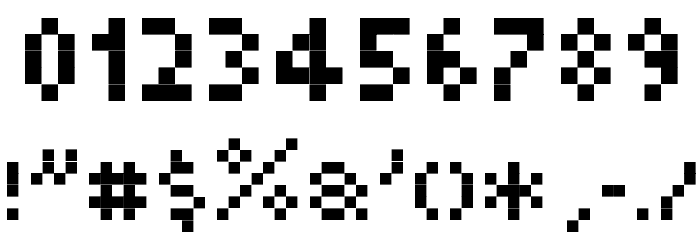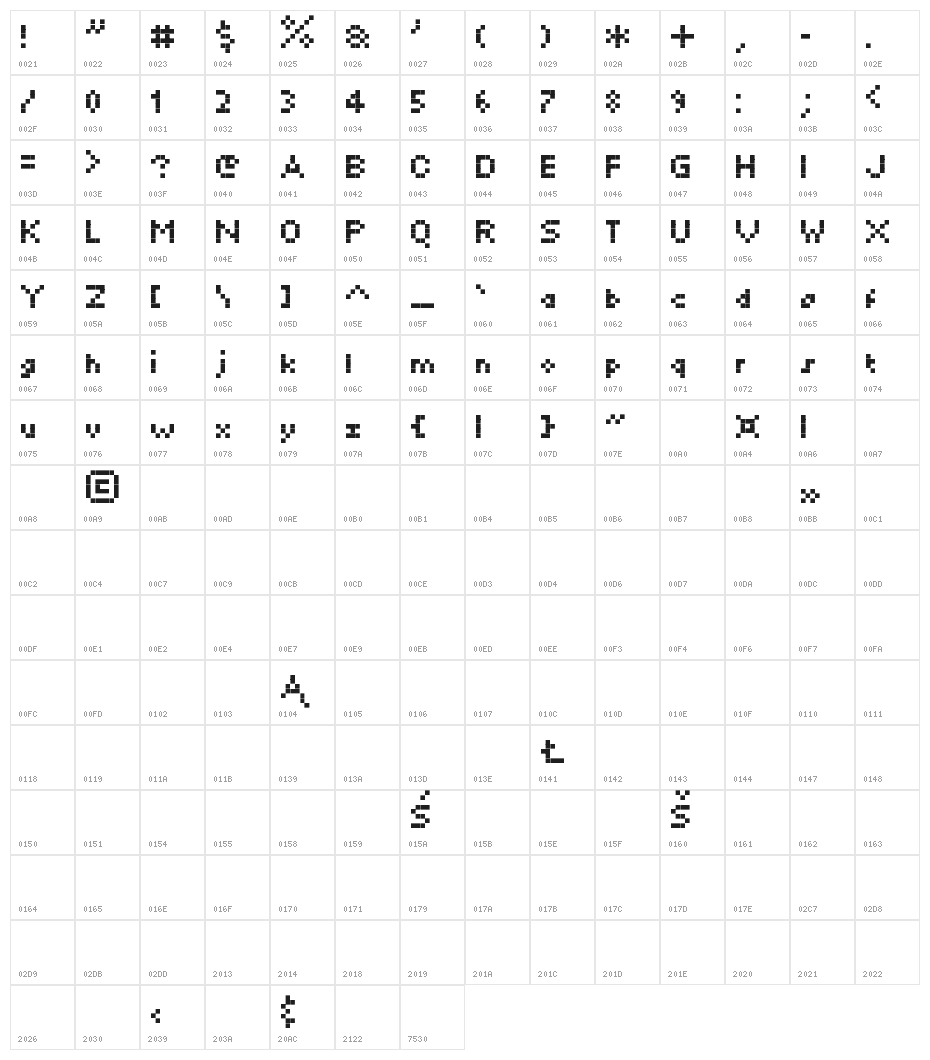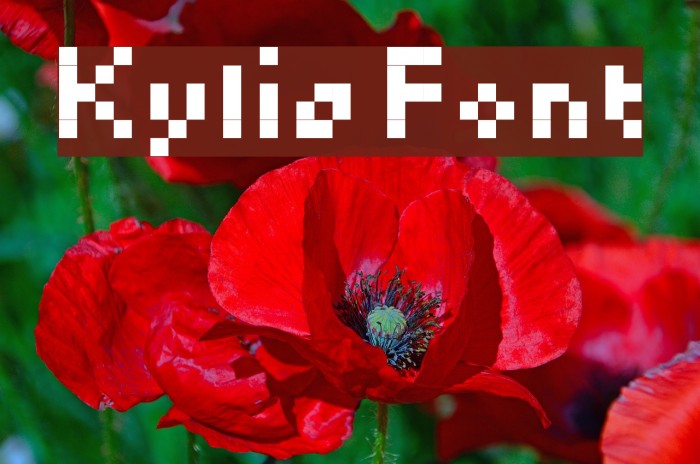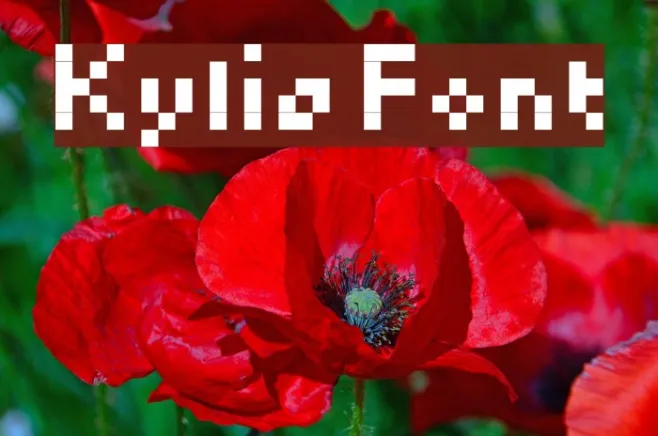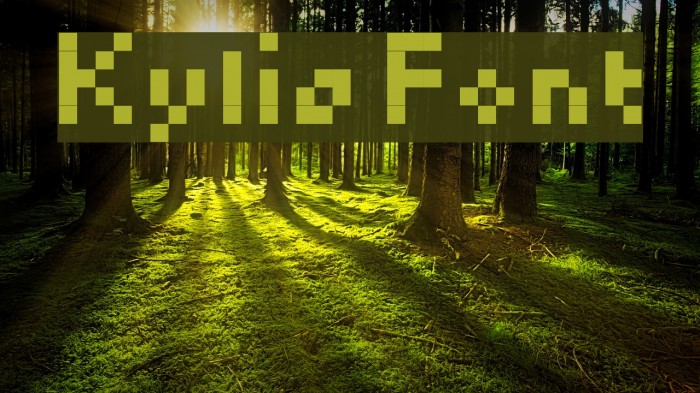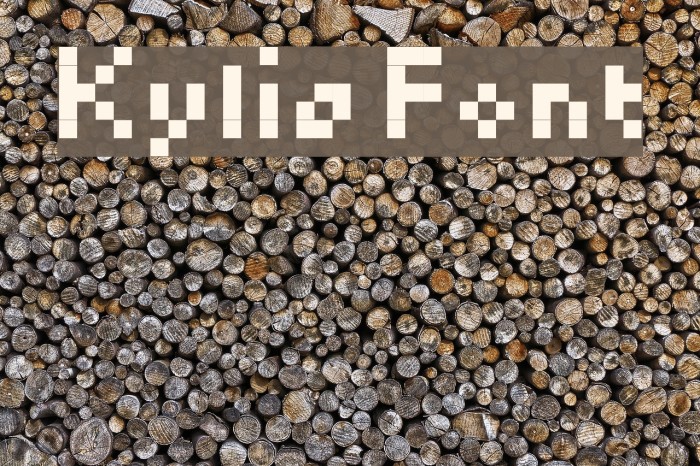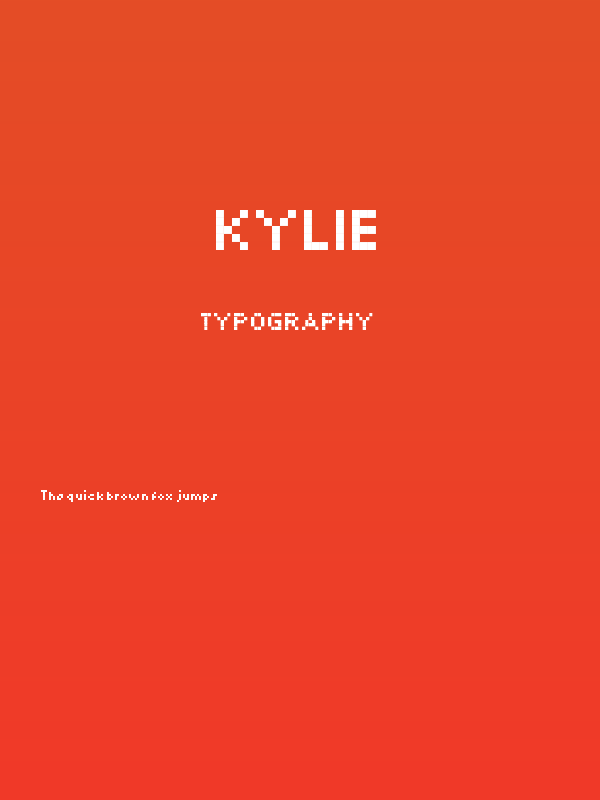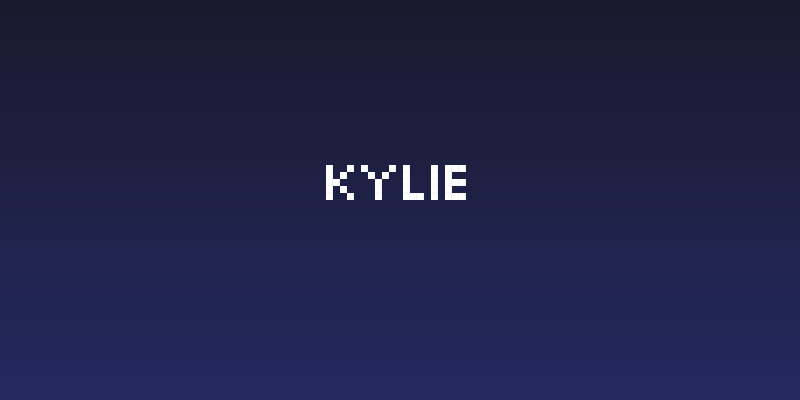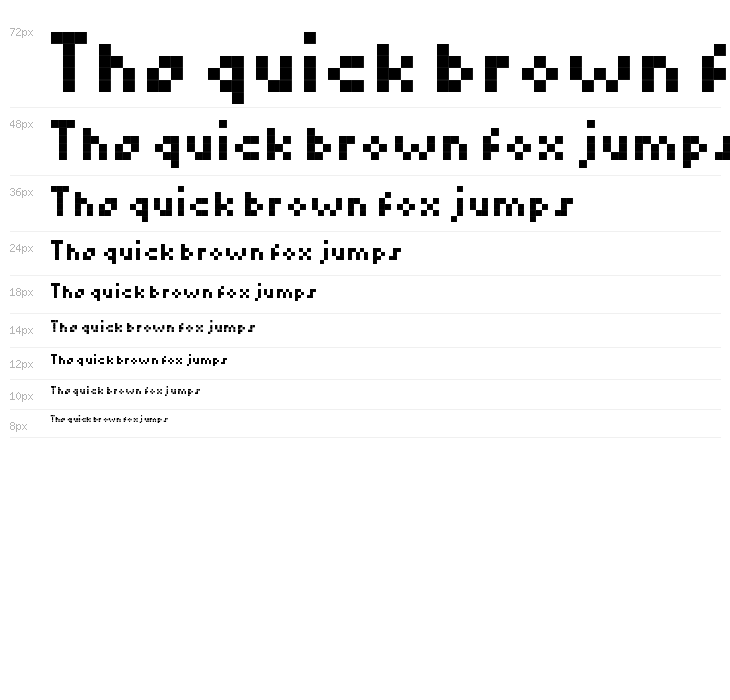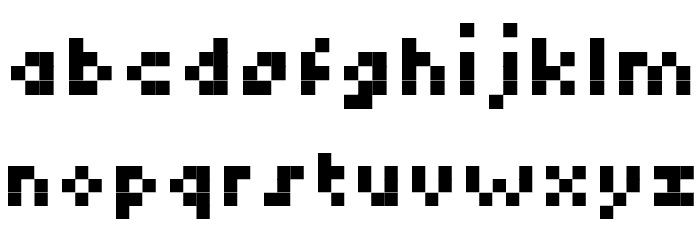
Kylie Font
Kylie Description
This font features a pixelated, blocky design reminiscent of early digital displays and retro video games. Each character is composed of small square blocks, giving it a distinctly digital and geometric appearance. The uniformity in the size of the blocks across all characters creates a cohesive and structured look. Despite its rigid form, the font maintains readability and a unique charm that evokes nostalgia for classic arcade games. The uppercase and lowercase letters, as well as numbers and special characters, all adhere to this pixelated style, making it ideal for projects that aim to capture a vintage digital aesthetic.